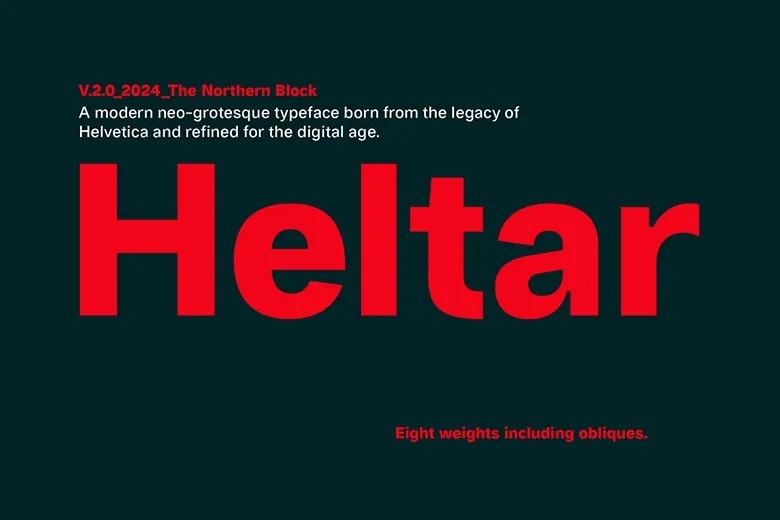
Heltar Font Family
Heltar is a versatile sans-serif font family that is able to change according to the context. Owing to The Designers Republic’s treatment of Helvetica and Hass Unica improvements, Heltar is a tribute with a twist. Its letterforms have been designed with perfect accuracy and with almost no kerning issues, providing good readability and flow even at tight letter spacing.
But Heltar is not only about the past Heltar is also about the future. With ink-traps in the form of gears to give the type a mechanistic look, Heltar is perfect for use by technology and manufacturing companies that want to convey modernity, and the future. It has 653 characters, 8 weights from thin to black and matched obliques for any typographic work.
It comes with fourteen numeral options, different characters (I, R, a, g, l) and some special symbols such as arrows, circled and squared numbers. It also supports Western, South and Central Europe languages and has been greatly updated to version 2.0 with more OpenType features and improved functionality.